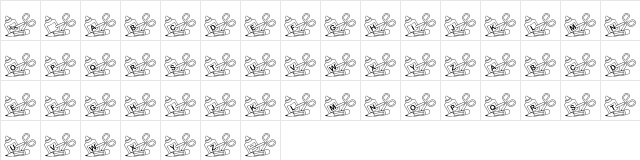
JLR Skool Dayz Regular Font Preview
JLR Skool Dayz Regular
Design Context for JLR Skool Dayz Typeface
JLR Skool Dayz is a composed and adaptable typeface that performs quietly and consistently across a wide range of design contexts.